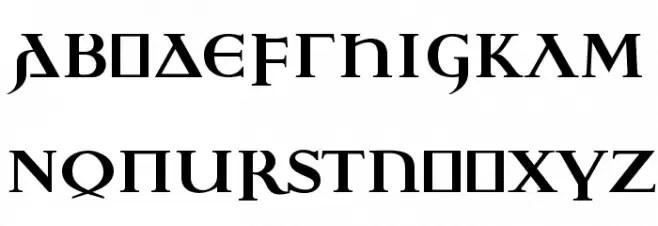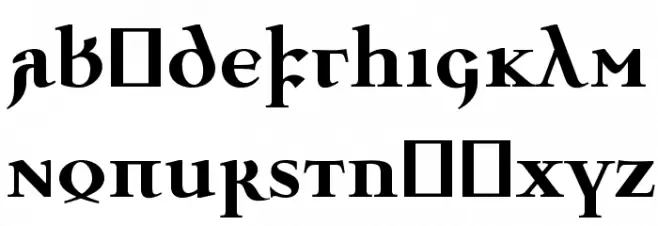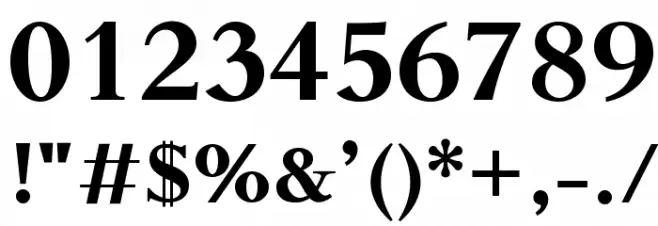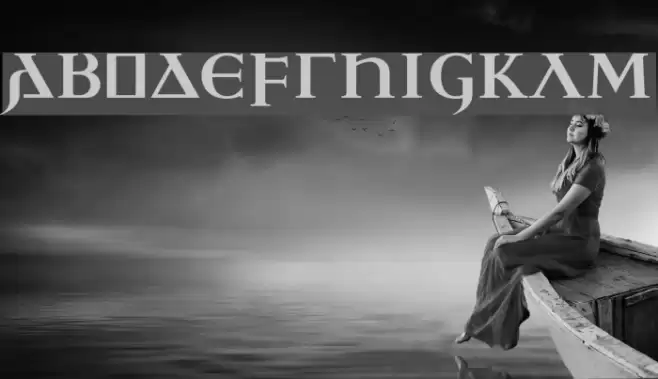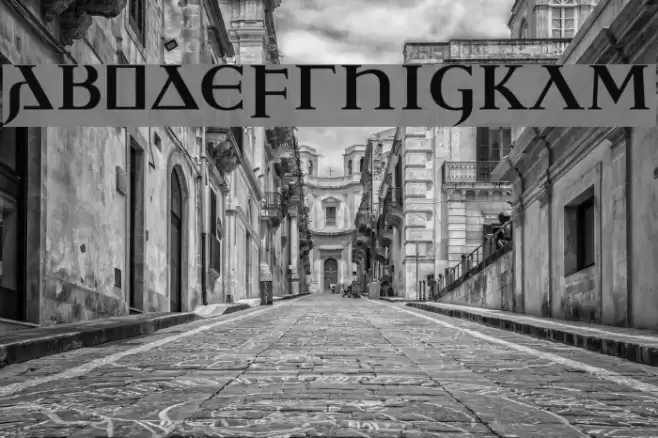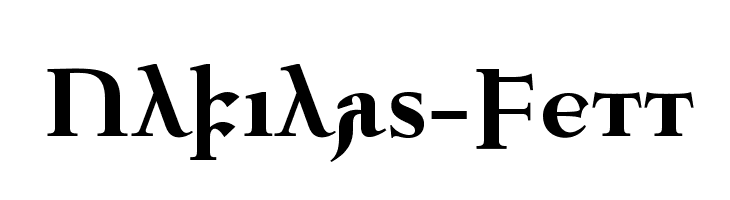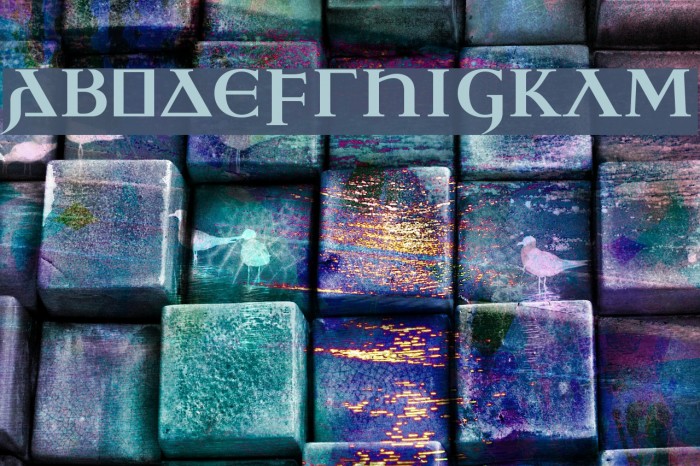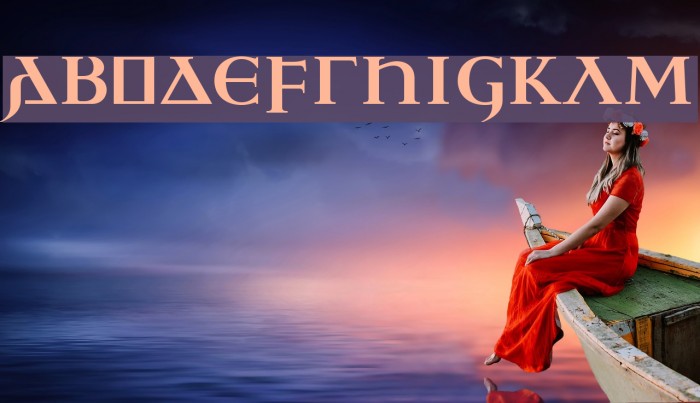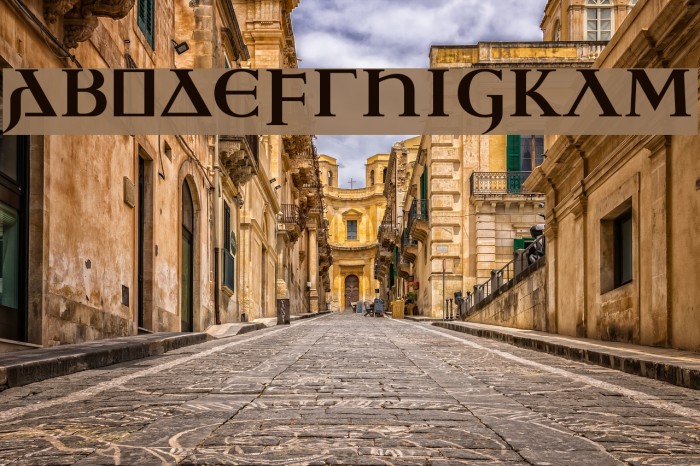
Ulfilas-Fett Font
Ulfilas-Fett Description
This font features a distinctive and bold design with a strong emphasis on geometric shapes and angular lines. The uppercase letters exhibit a unique blend of sharp edges and curves, creating a striking visual impact. The lowercase letters maintain a consistent style, with some characters featuring elongated strokes and others incorporating unexpected angles. The numerals are bold and clear, ensuring readability while maintaining the font's overall aesthetic. Special characters are designed with the same attention to detail, making them seamlessly integrate with the rest of the typeface. This font's bold and decorative nature makes it ideal for projects that require a strong visual presence.
A bold, geometric font with angular lines and a strong visual impact.
- Proposed Projects: Ideal for branding, poster design, and any project that requires a bold and distinctive typeface.